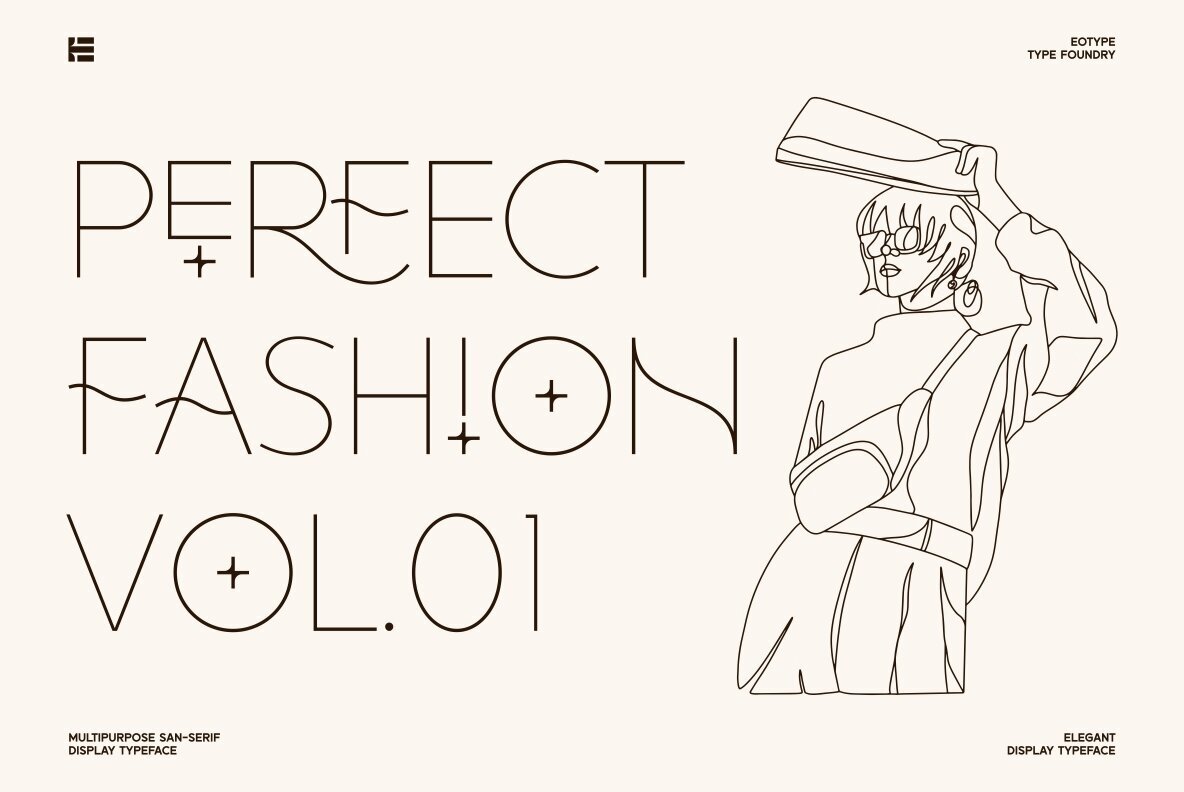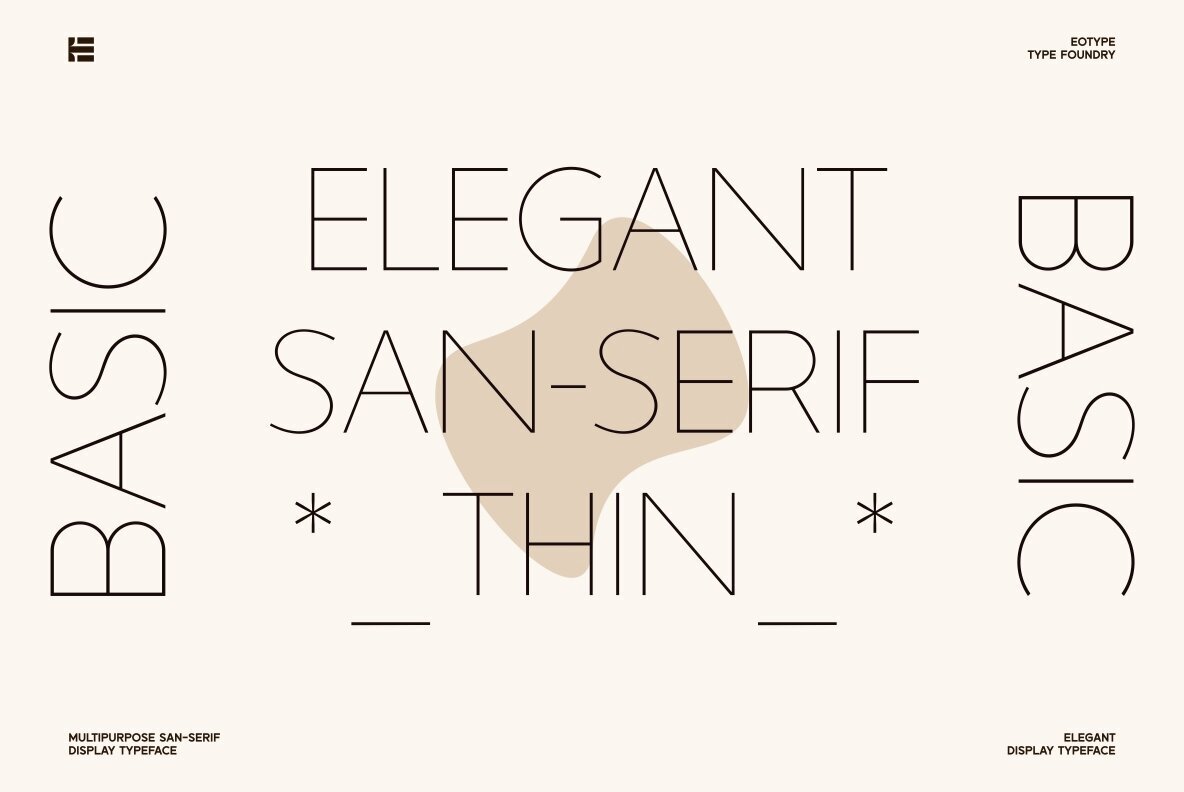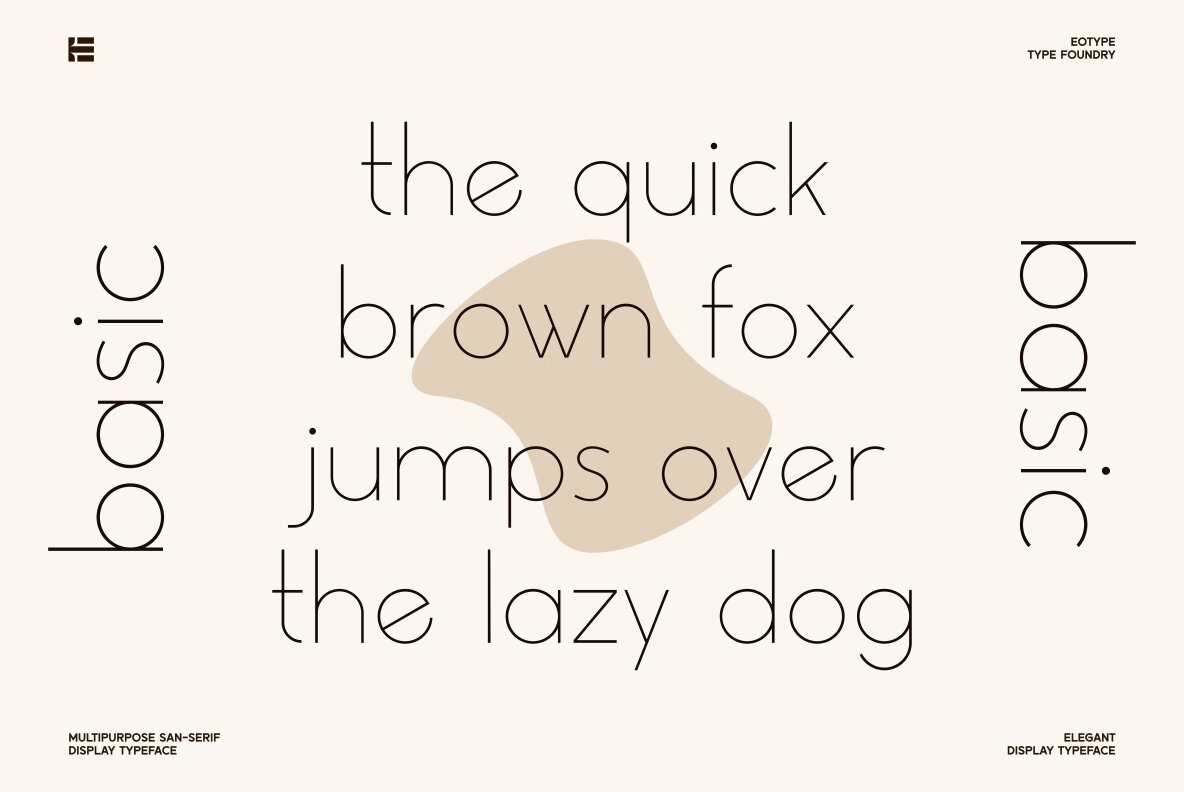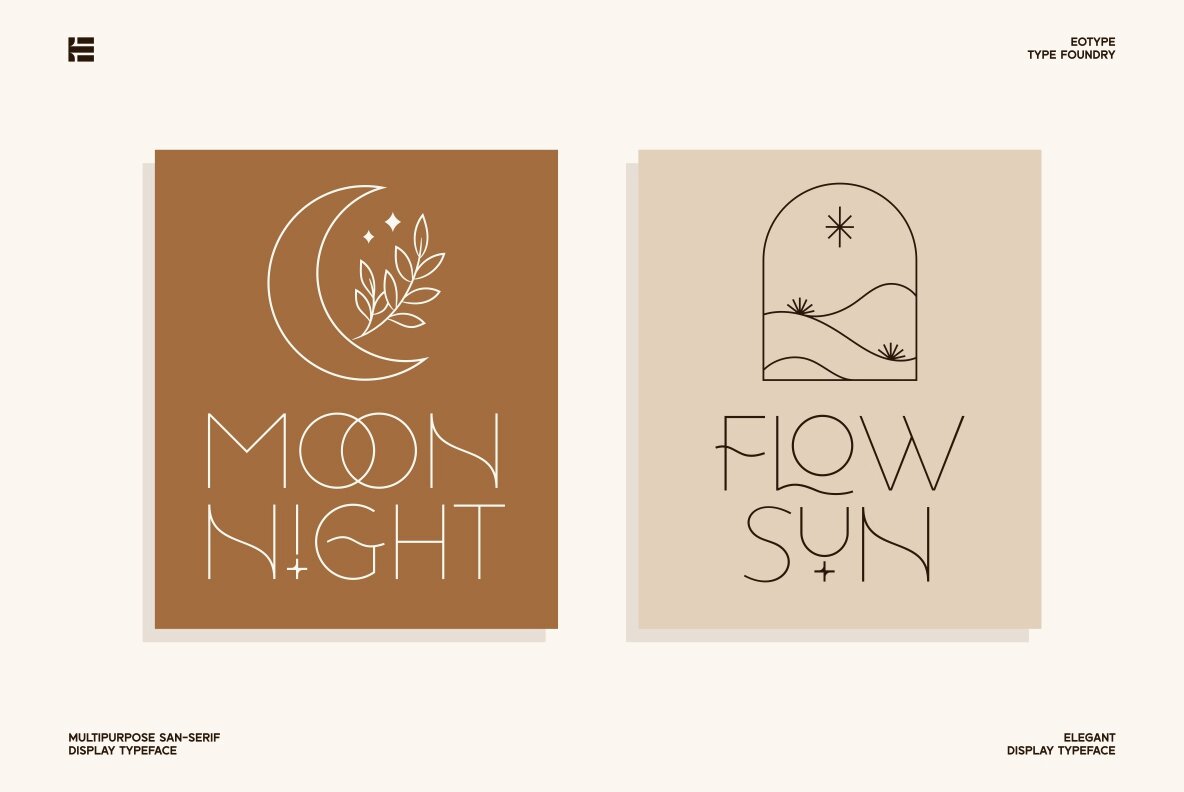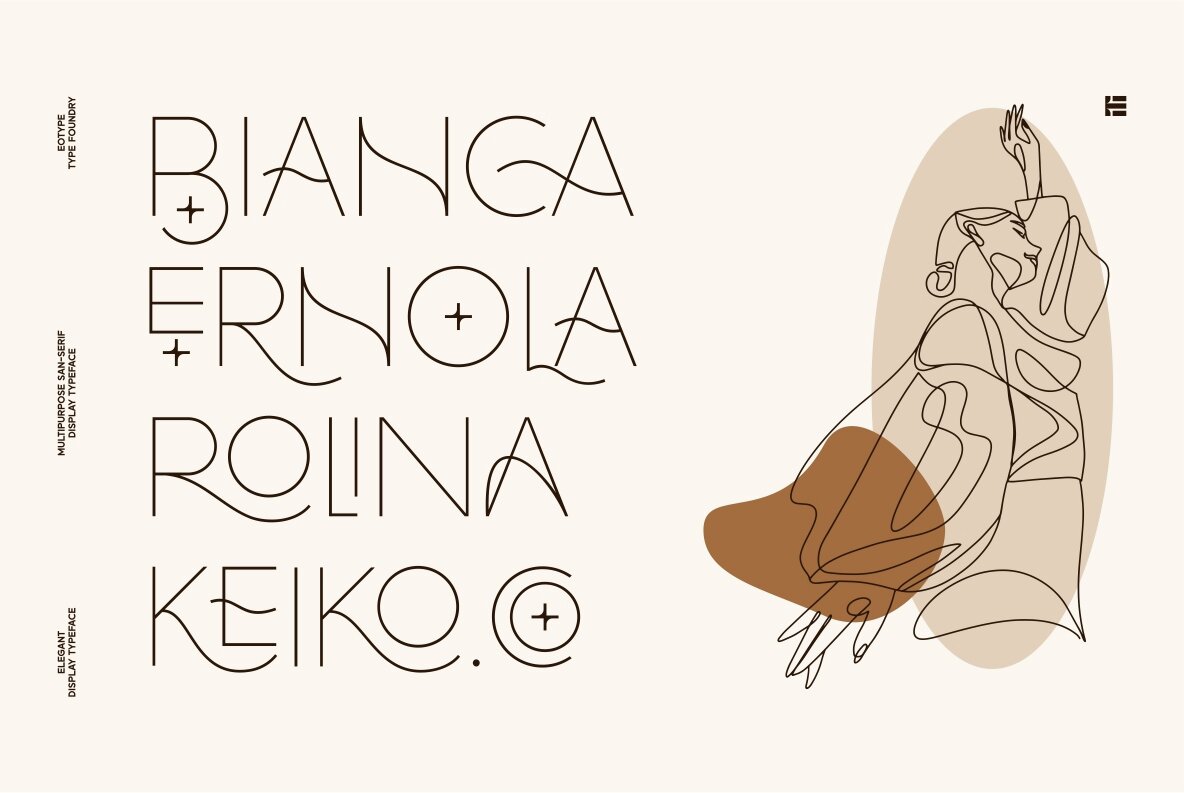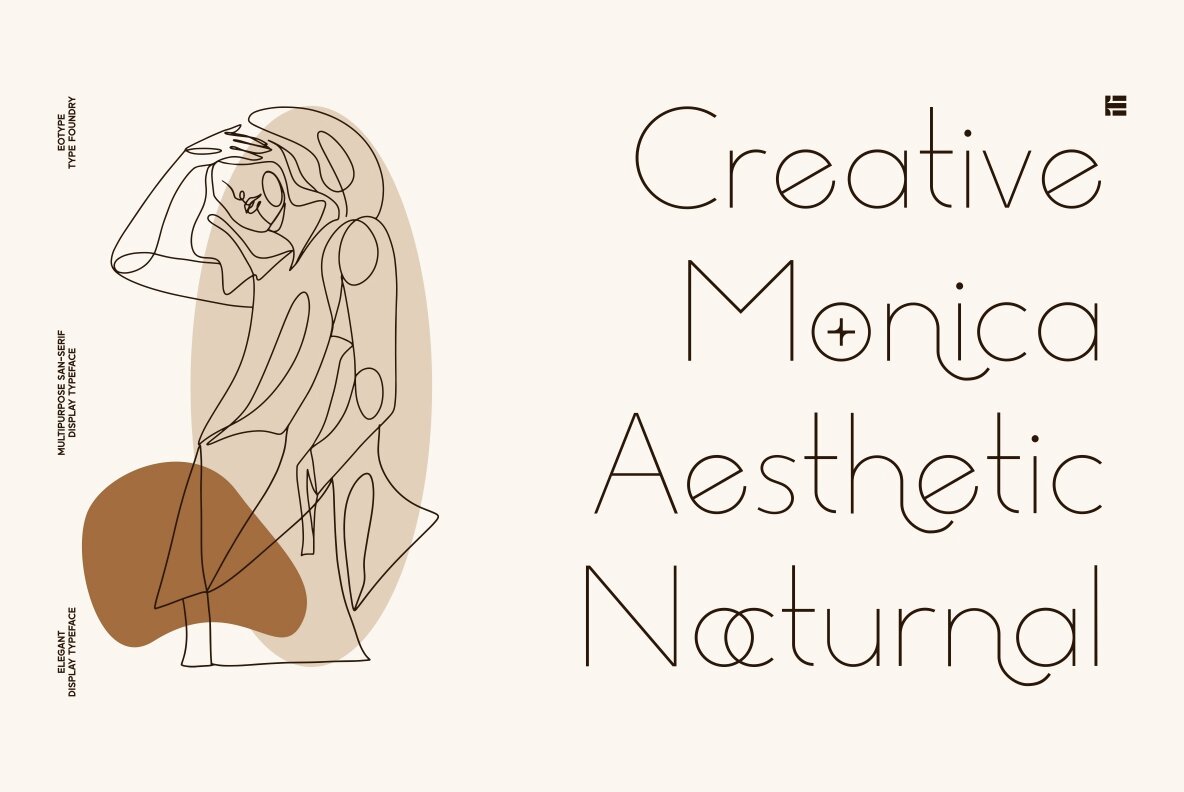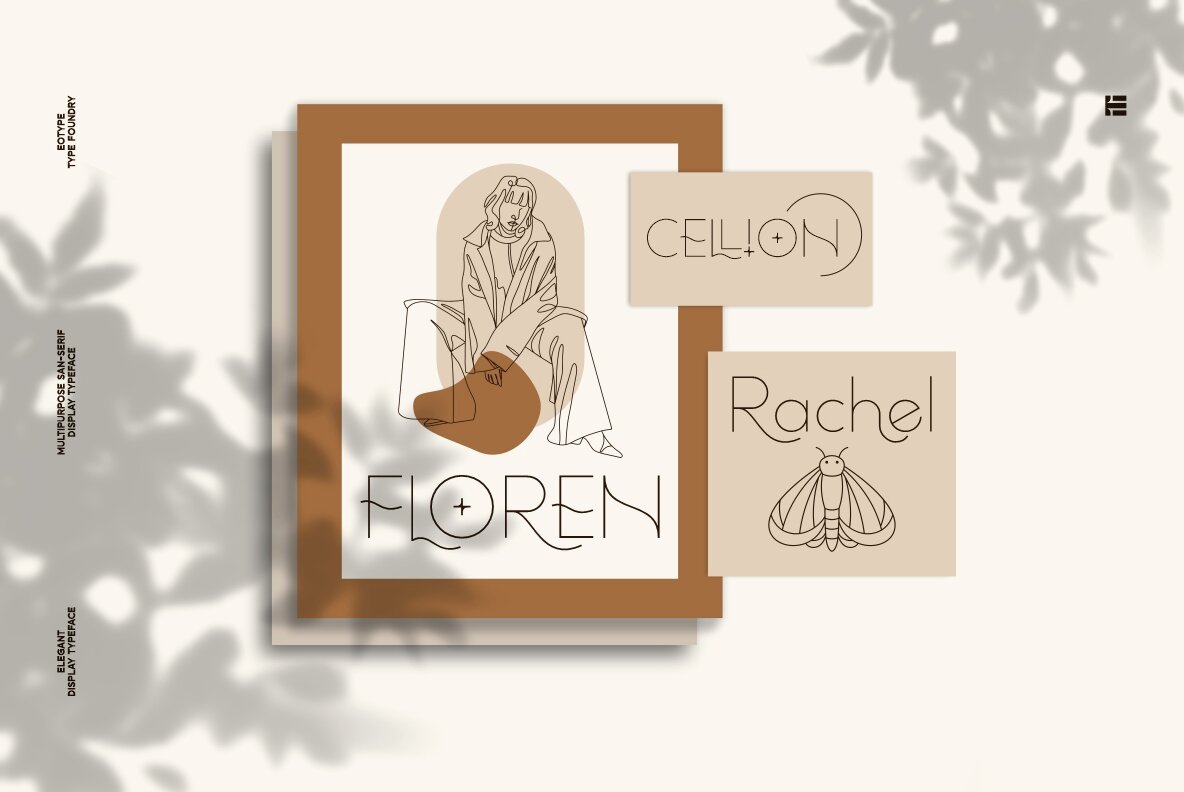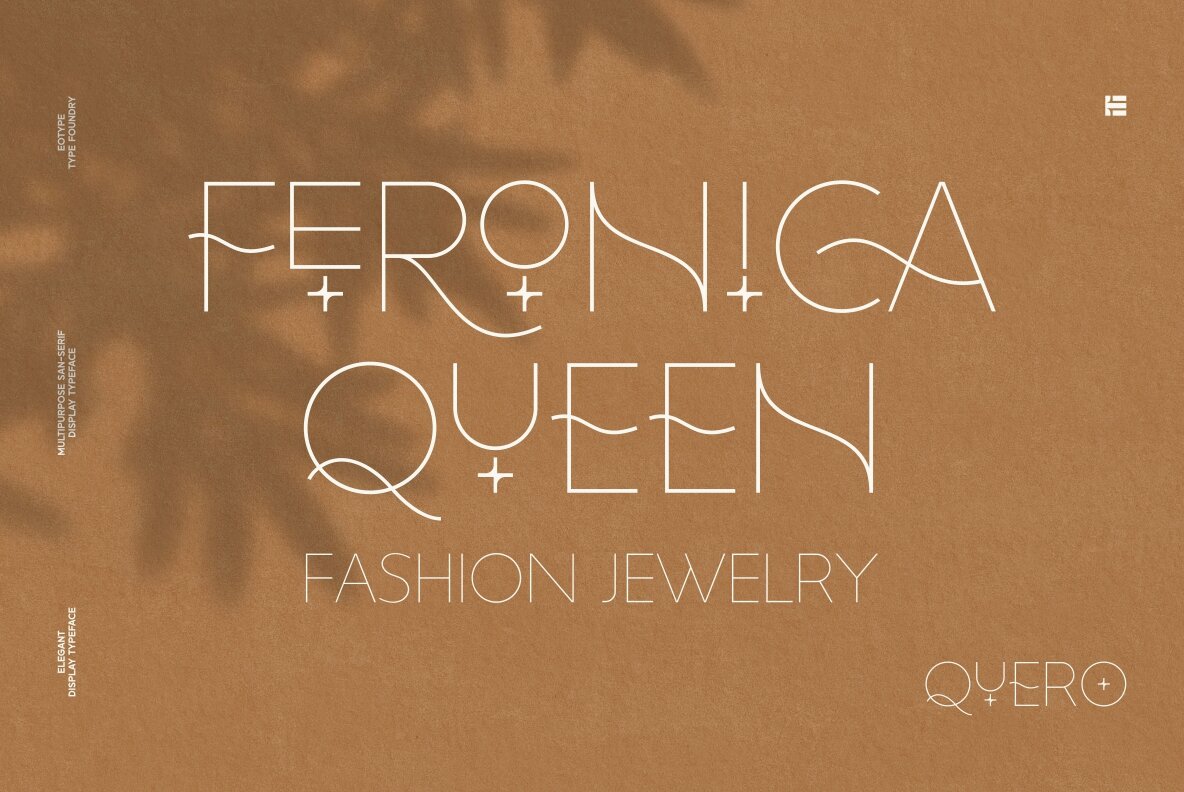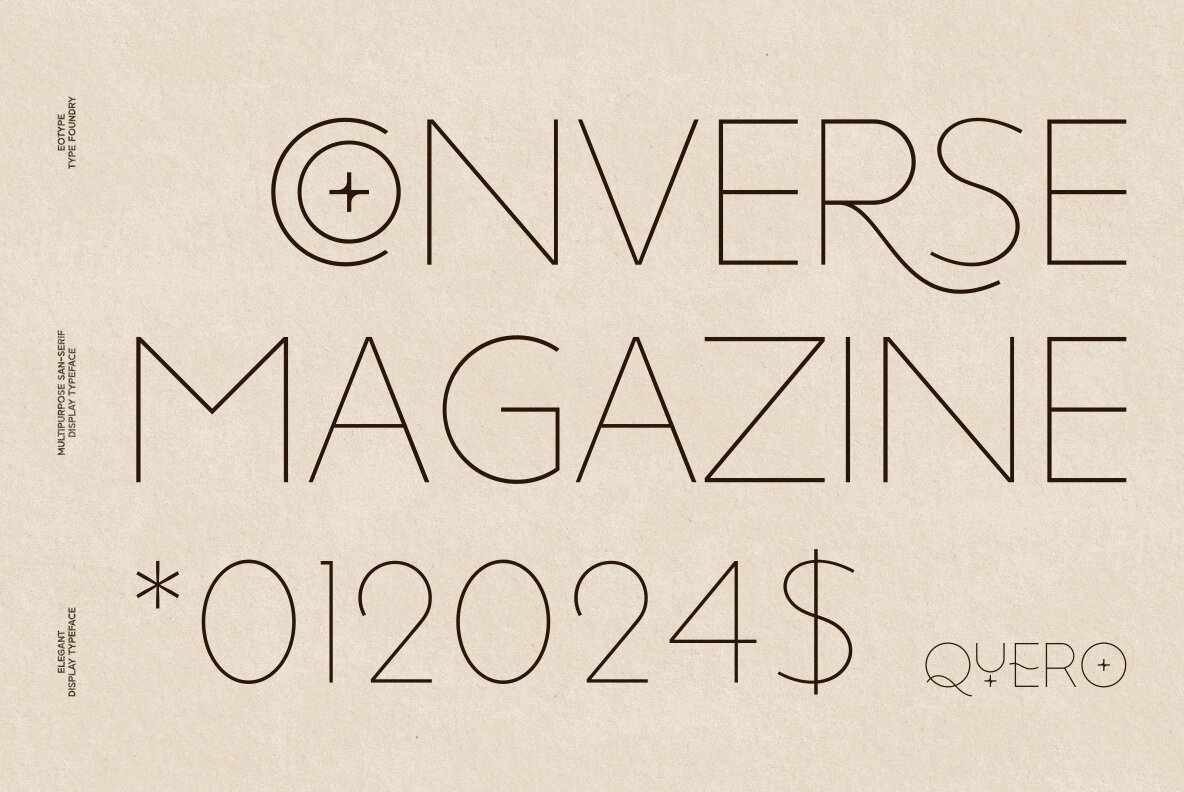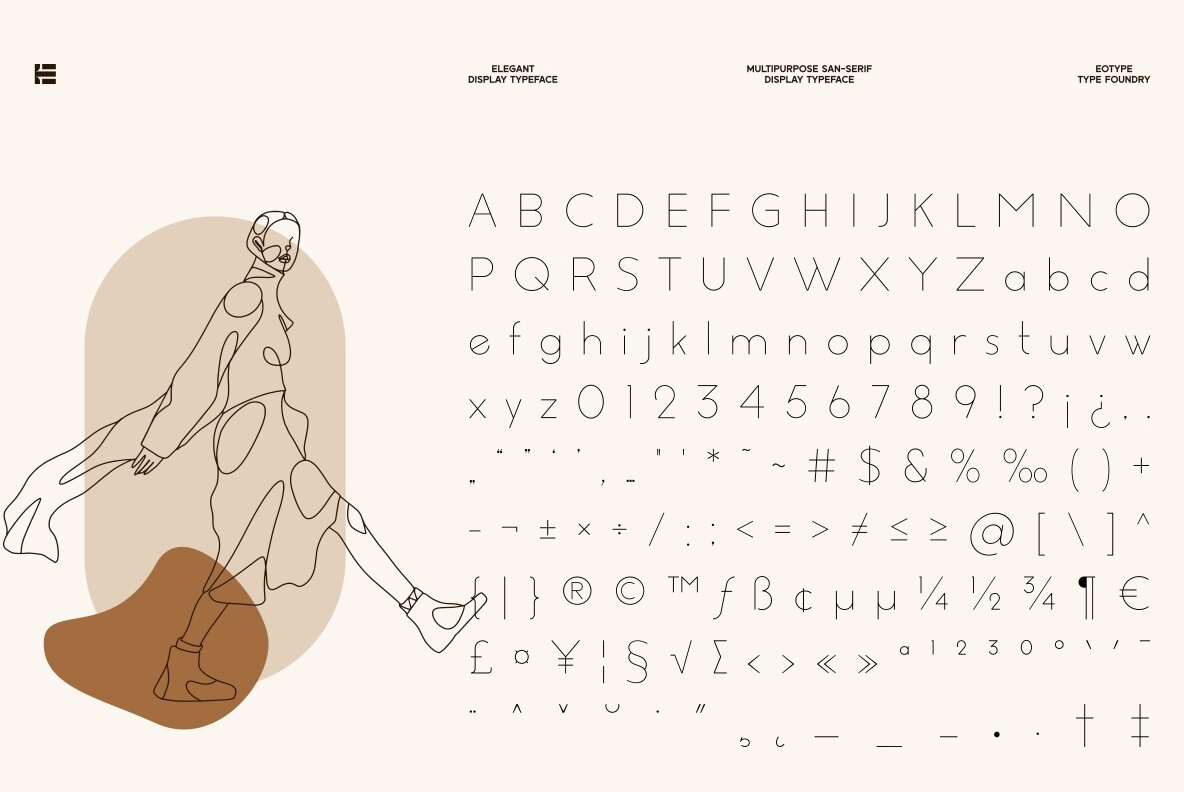
Quero Font
Quero Regular
Quero is a decorative sans serif font that has thin,elegance and versatility. This unique font is perfect for creating beautiful logotypes, stunning magazine designs and more. This font can be your solution in completing projects that are equipped with various alternate and ligature collections.